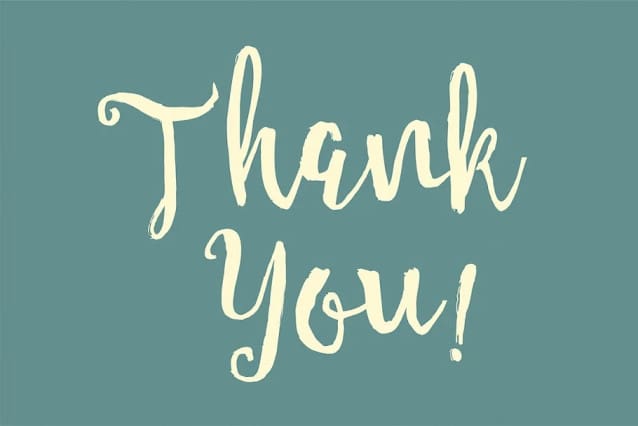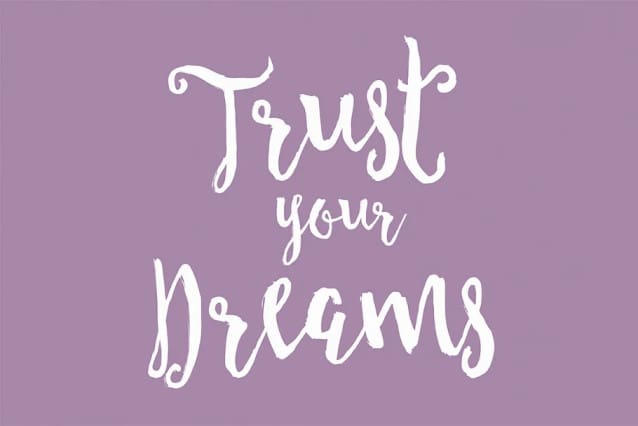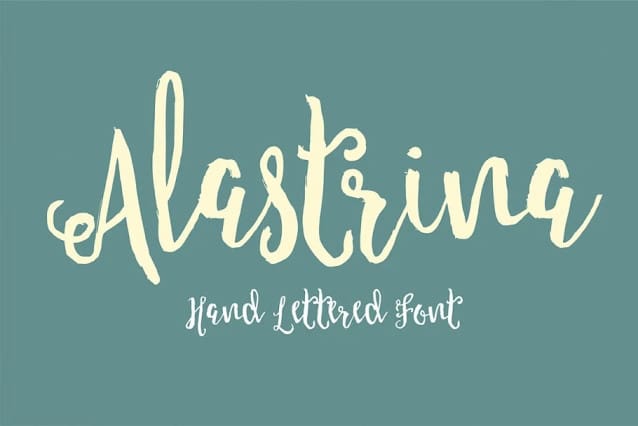
Alastrina Script Font
Alastrina Script Font is a modern calligraphy brush typefaces with a dancing baseline. looks lovely on Posters, Logos, Print, Quotes, Headers, Clothing, etc